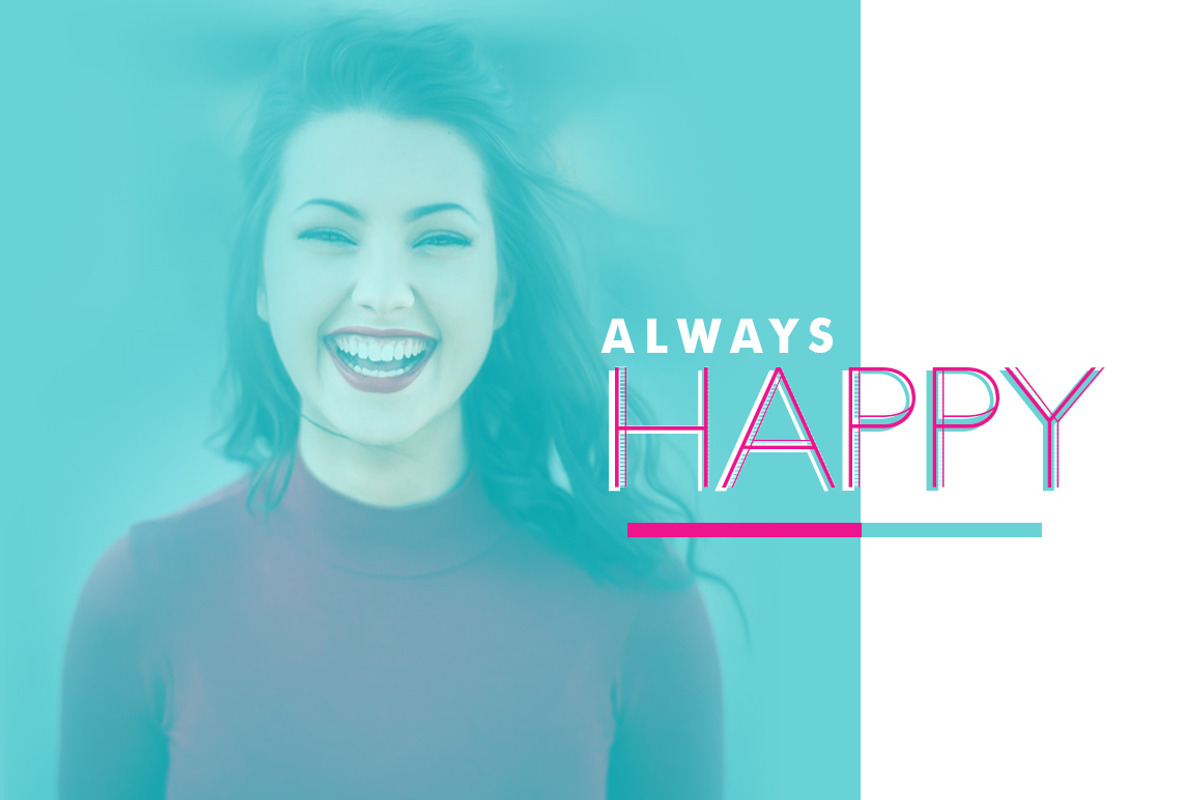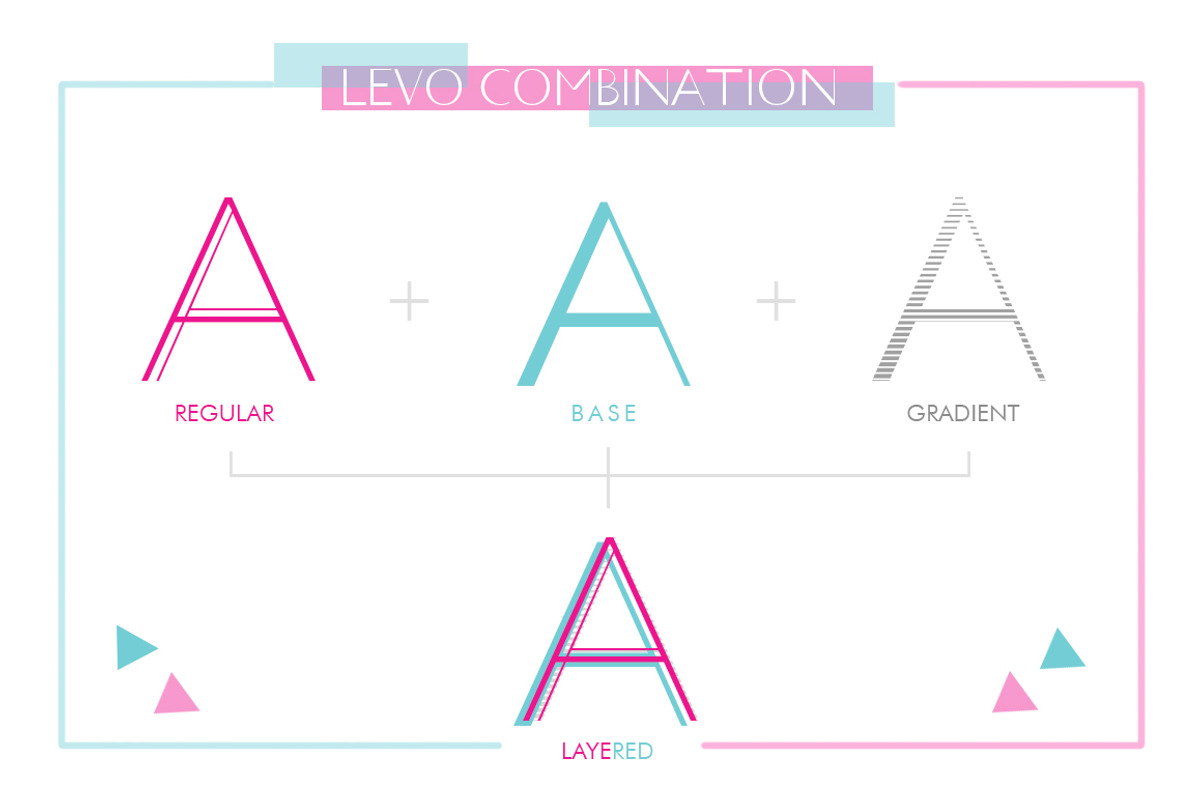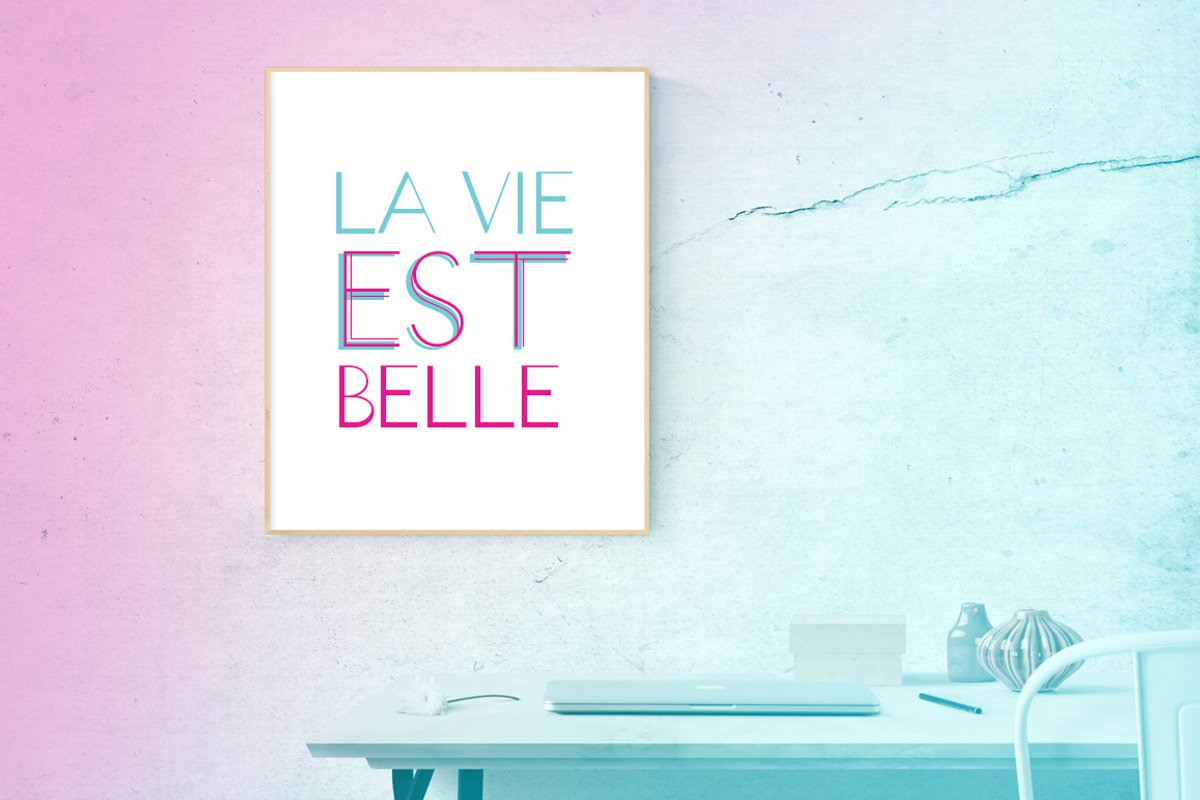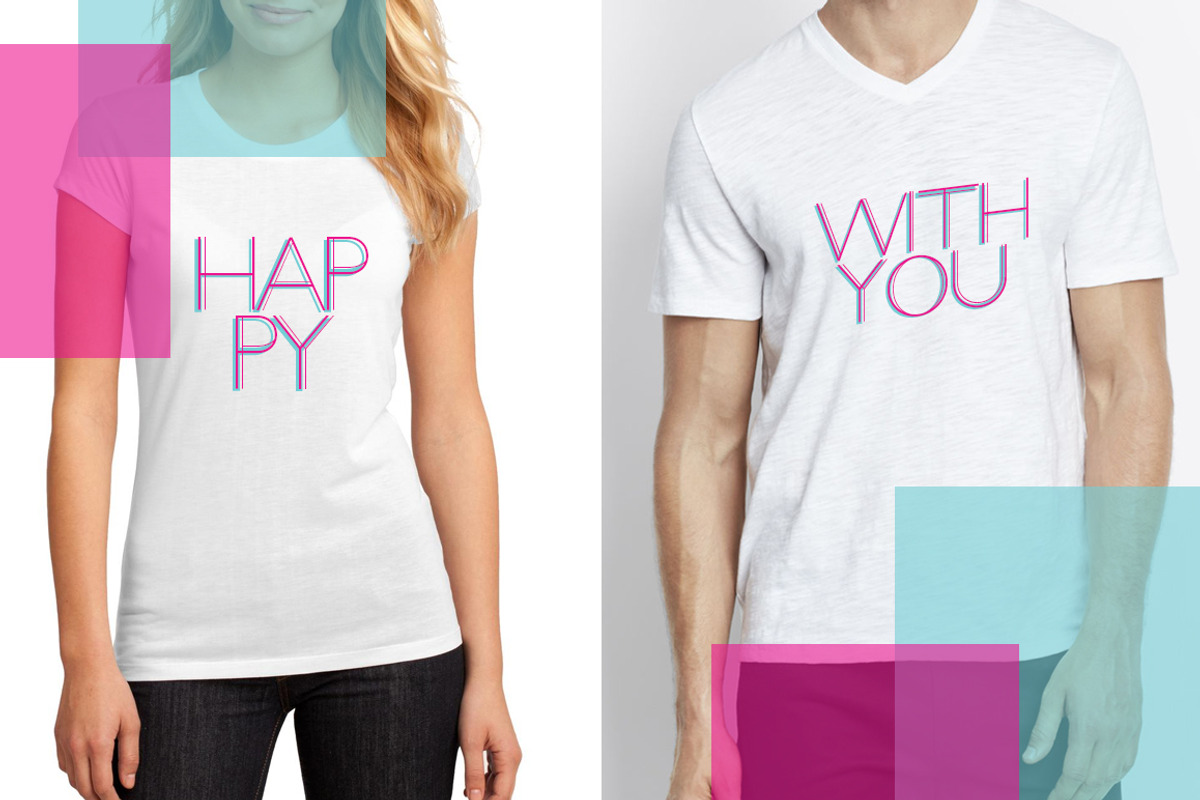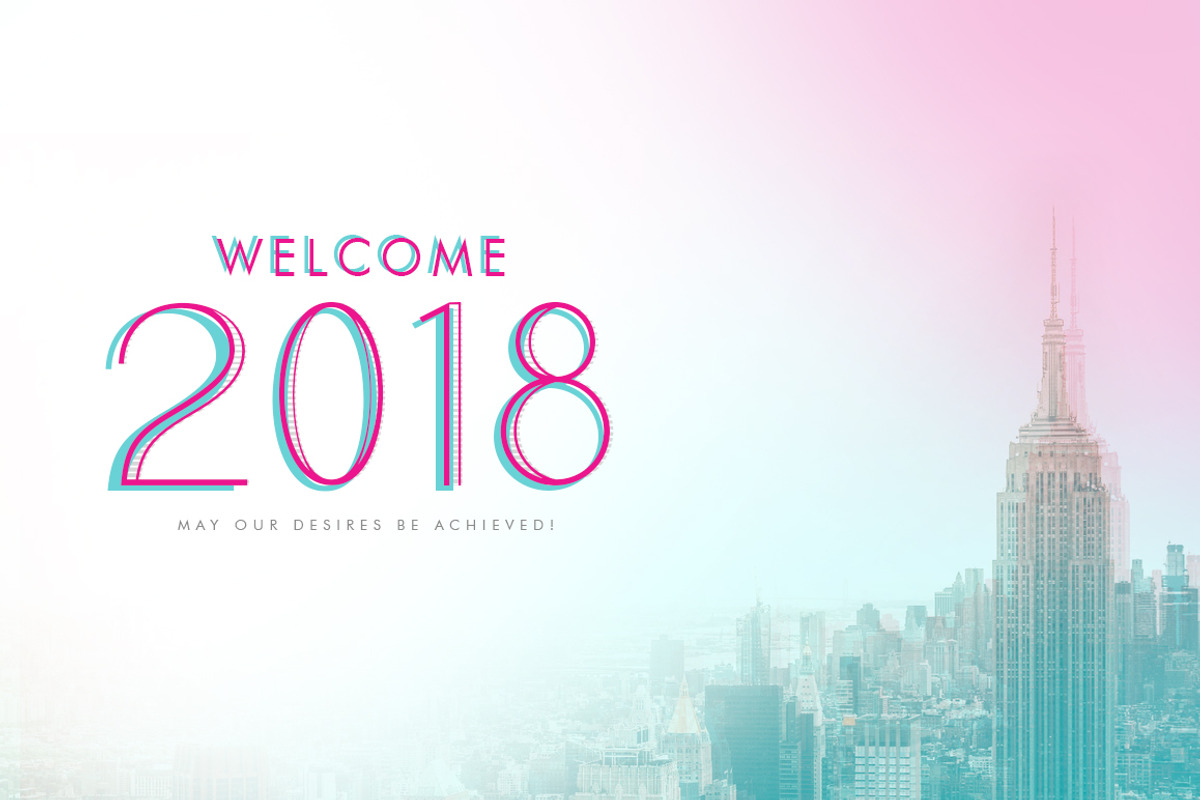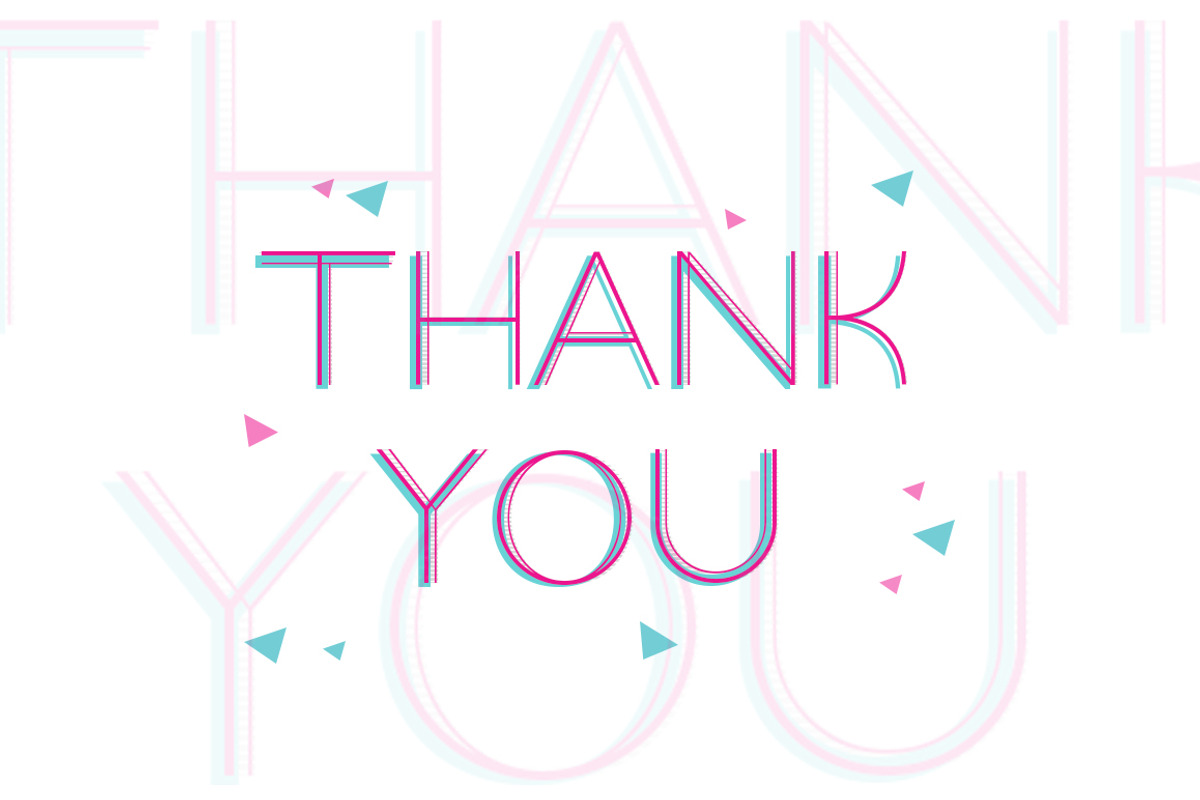
Levo Sans 3 Layered Font
Levo Sans a minimalis layered typeface and awesome character with 3 different style, regular, base and gradient. Levo Sans support multilanguage & used with layers method. Levo it’s perfect for namecard, poster, logo, magazine, cover, banner, tshirt and headers, or even large-scale artwork.
Levo Sans 3 Layered Font by khurasan fits naturally into Branding, posters, packaging, typography.